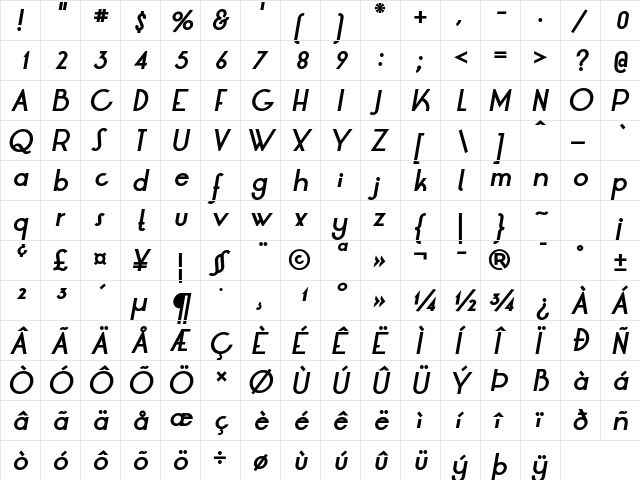
LRT Oksana Bold Italic
| Designer | Lauren Thompson |
Design Context for LRT Oksana Typeface
LRT Oksana offers clean, dependable letterforms without strong stylistic allegiance, making it a practical choice for designers who need flexibility. The slanted form adds forward momentum and visual energy. Its bold stroke weight gives it real presence on the page.
Pro Tip: Try LRT Oksana for annotation and caption copy alongside an upright companion — the contrast in angle creates a dynamic but ordered typographic system.